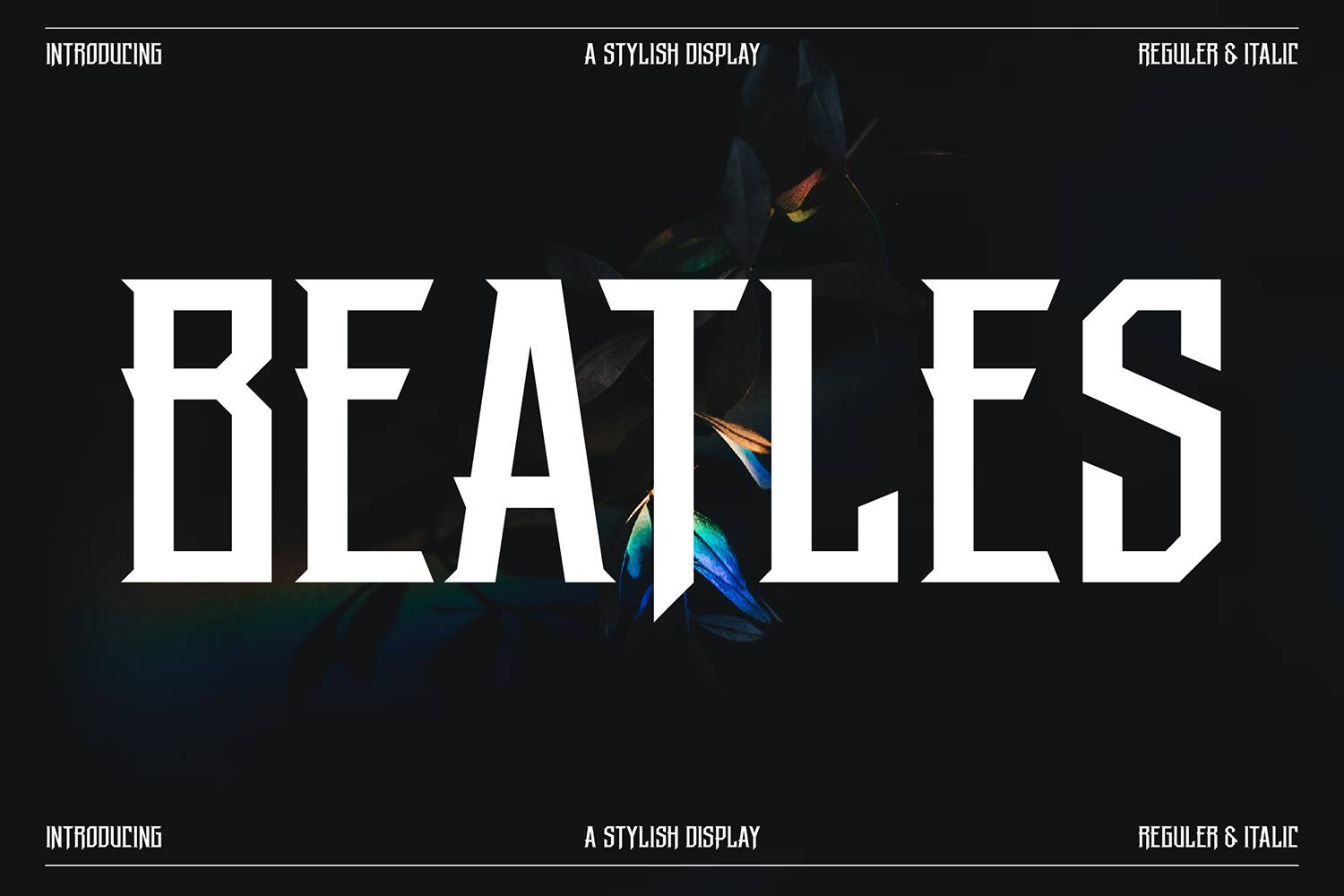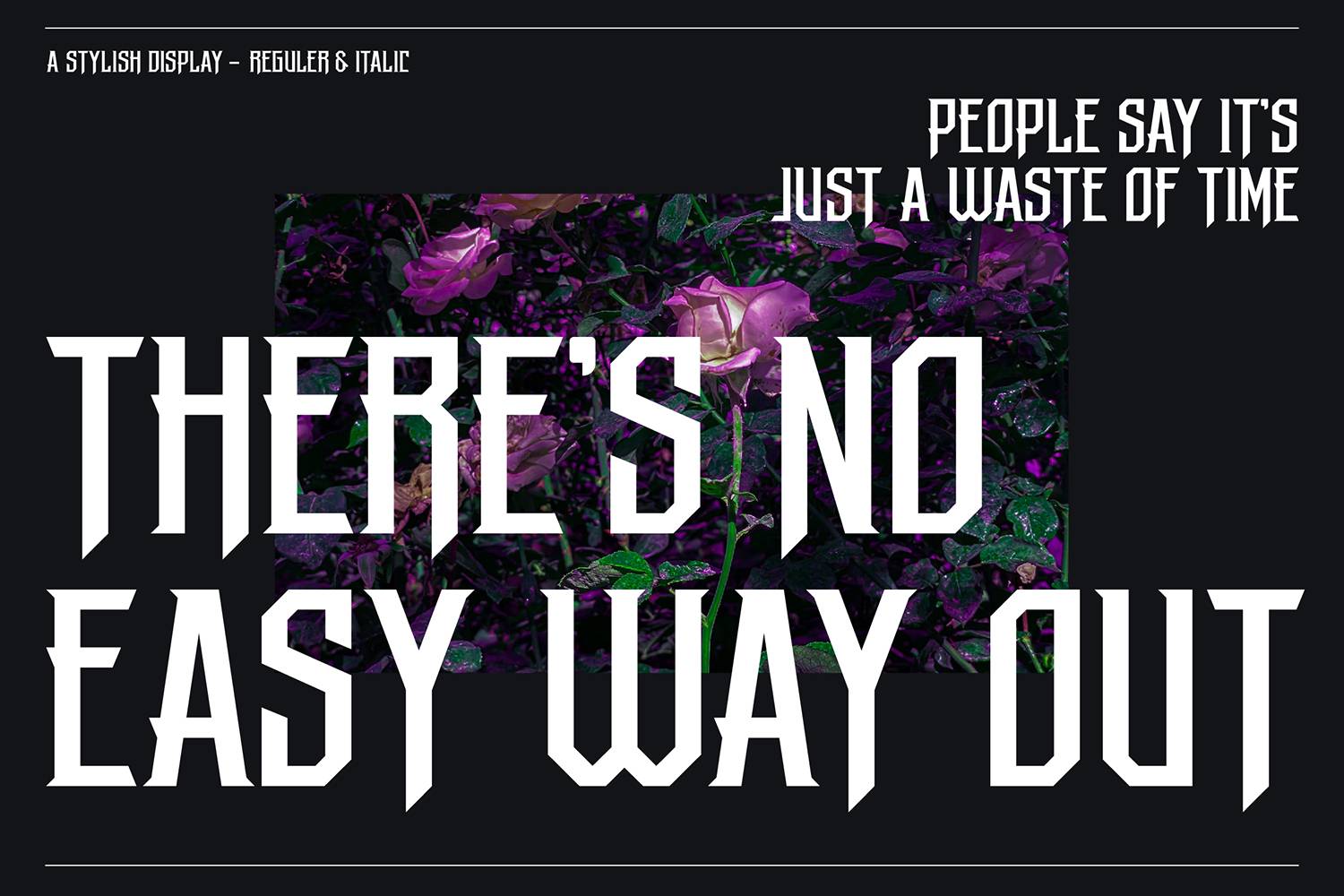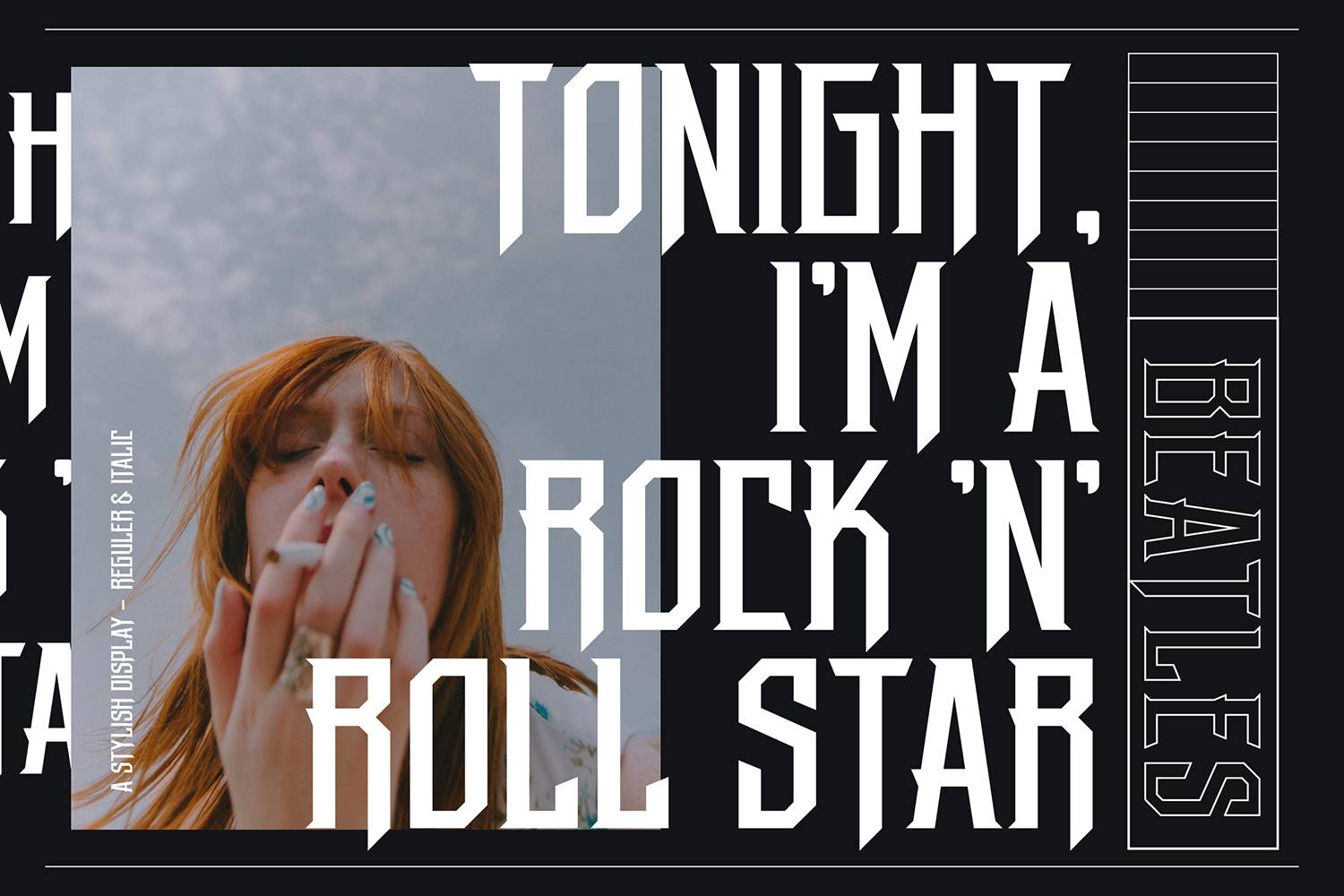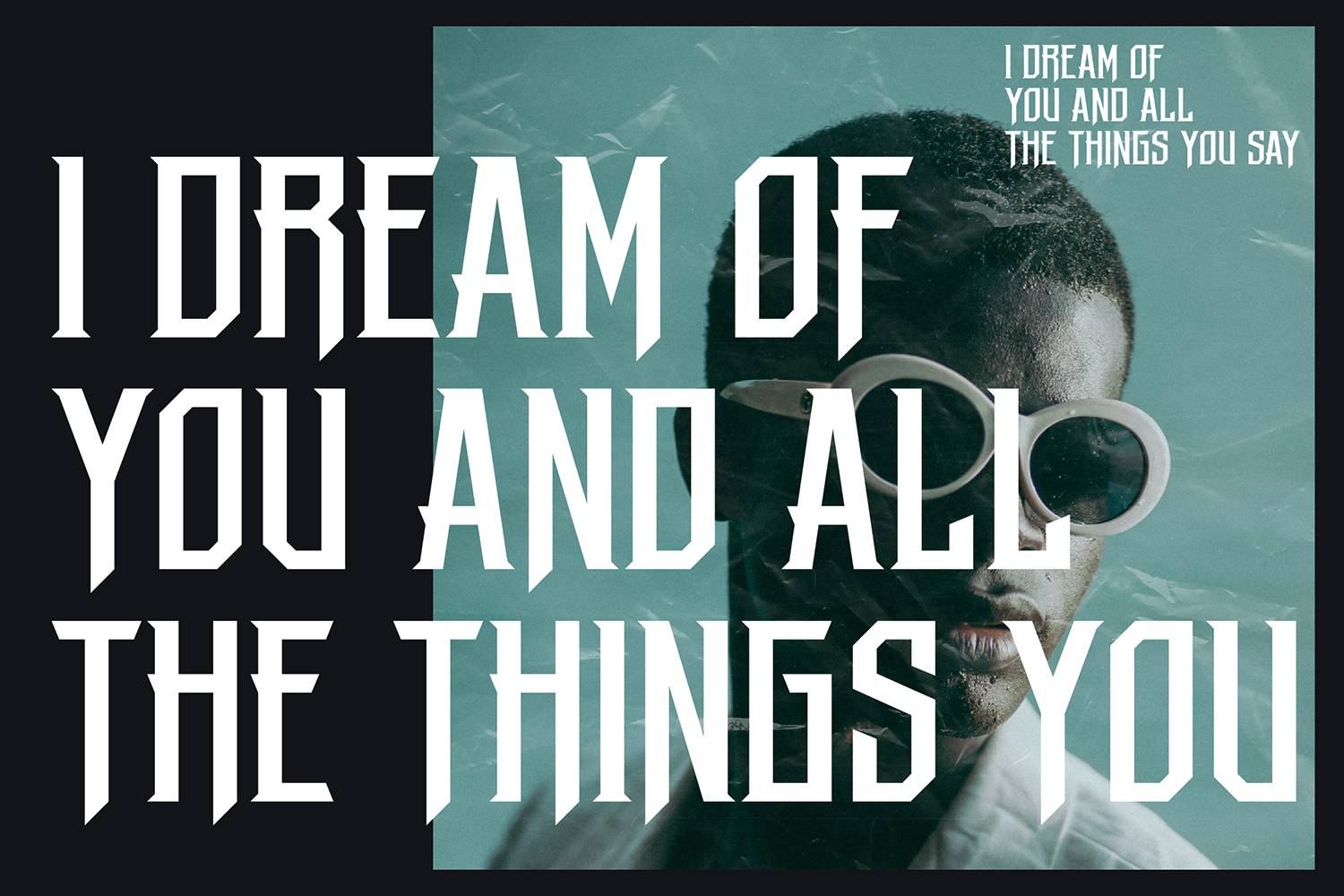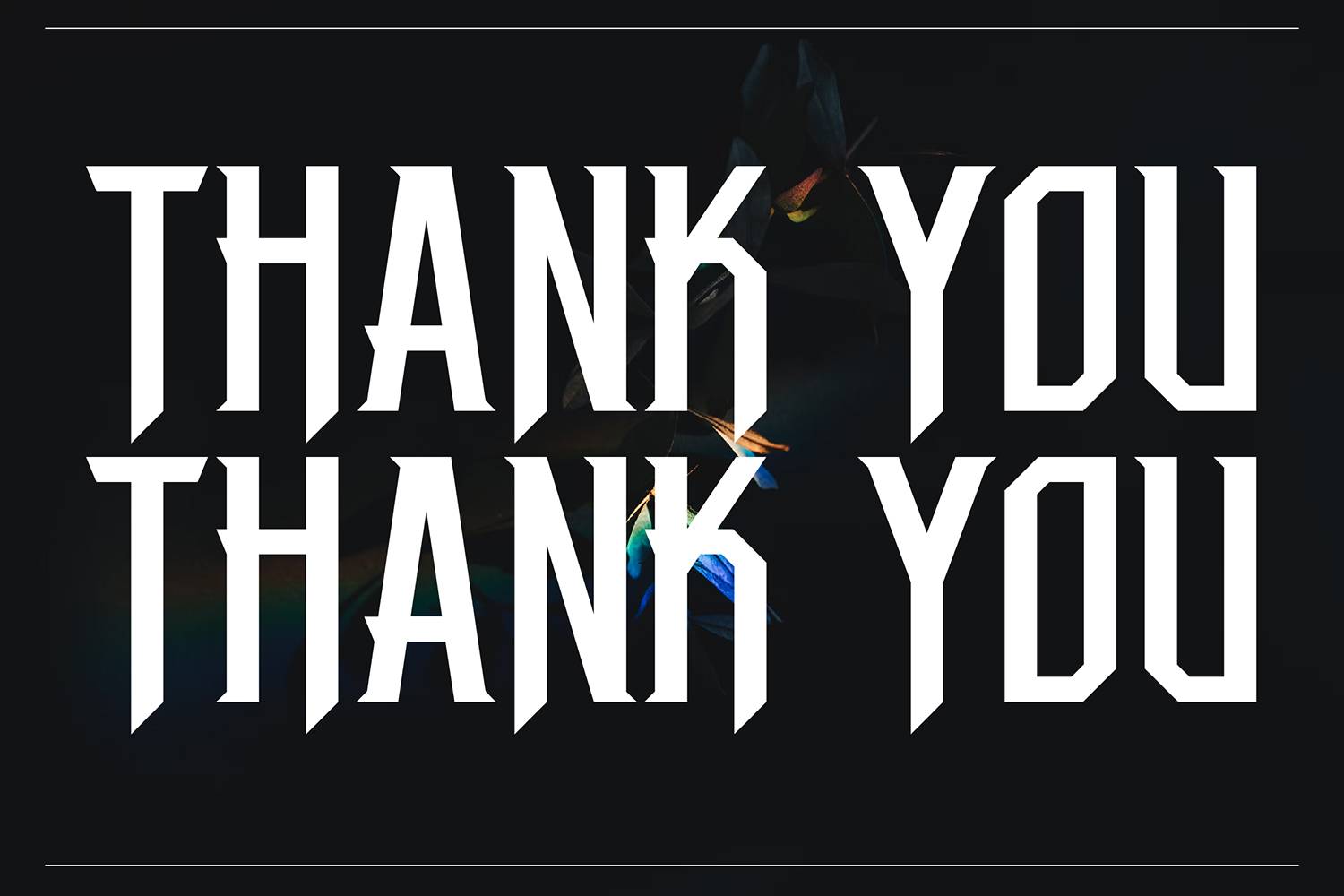
Beatles Font is a bold, condensed serif typeface with sharp, geometric edges and a strong vintage vibe. Its tall, narrow letterforms and distinctive angular serifs give it a striking, authoritative presence, making it ideal for retro-inspired branding, posters, and headlines where a bold statement is needed. This font conveys a sense of classic coolness and timeless style, perfect for projects seeking an impactful and memorable look.
Beatles Font
About Beatles Font